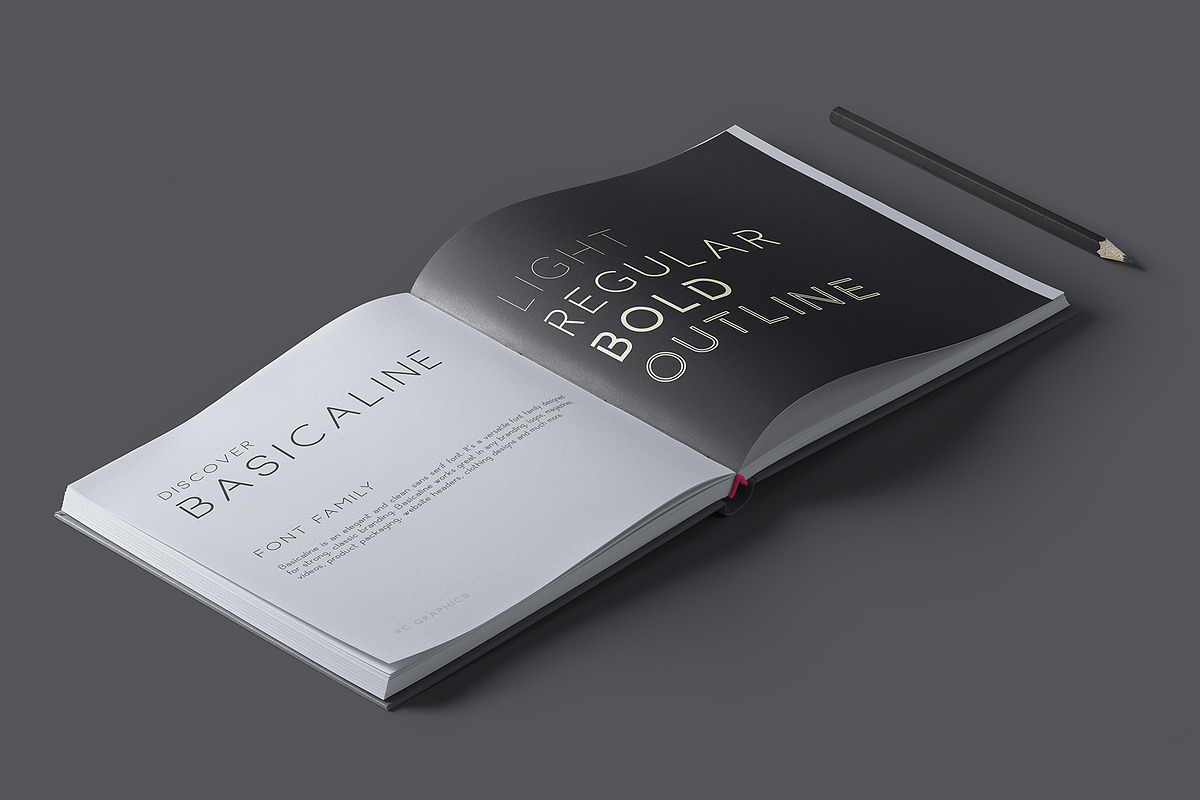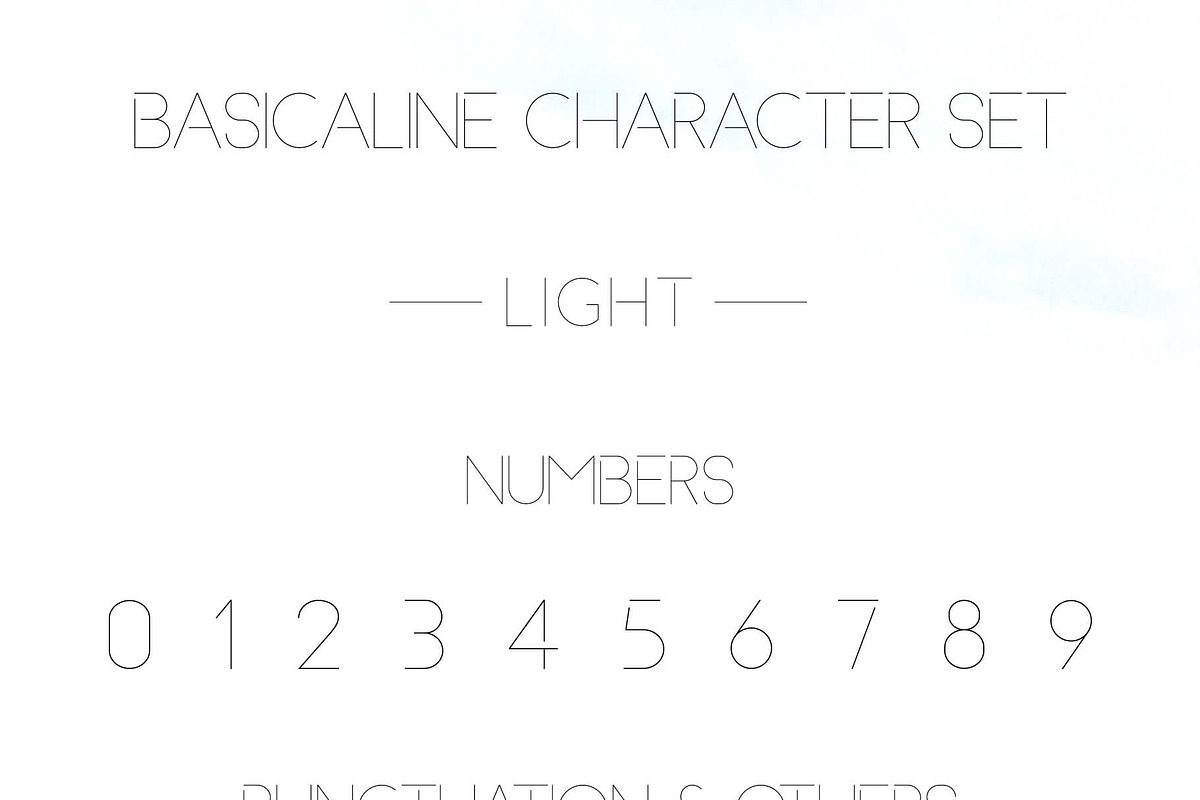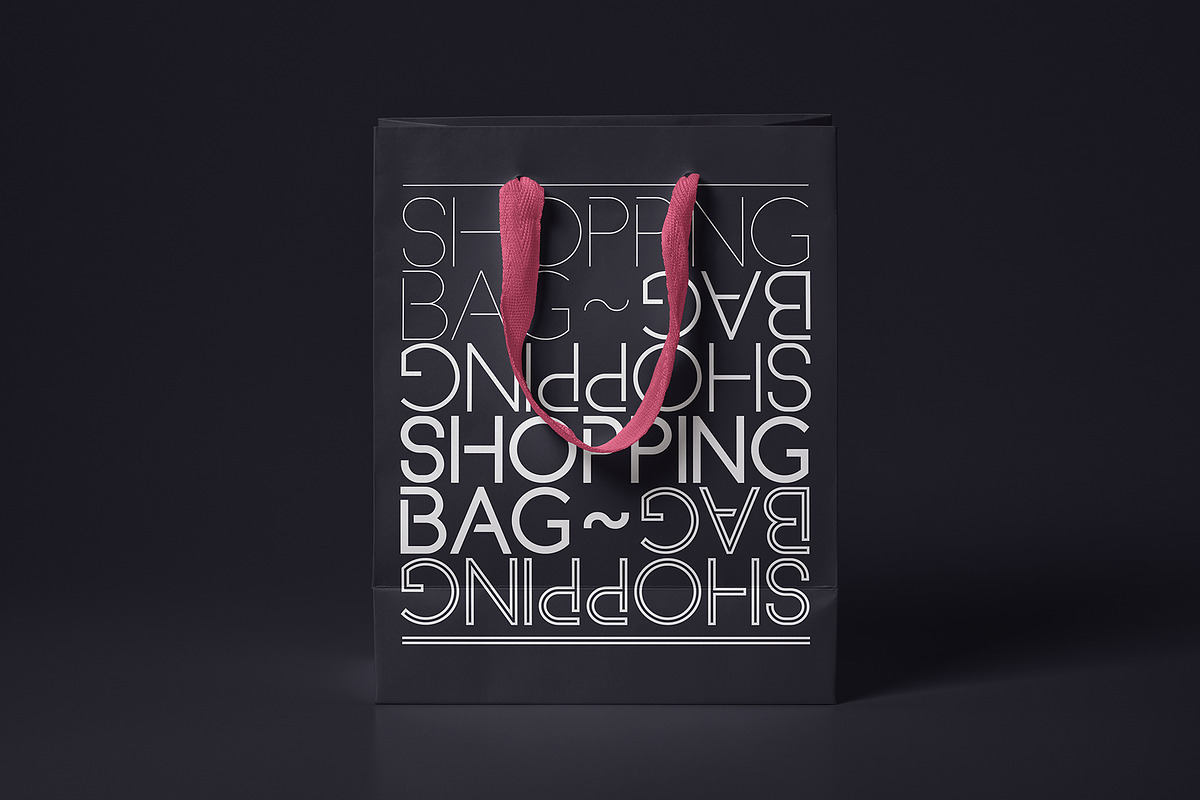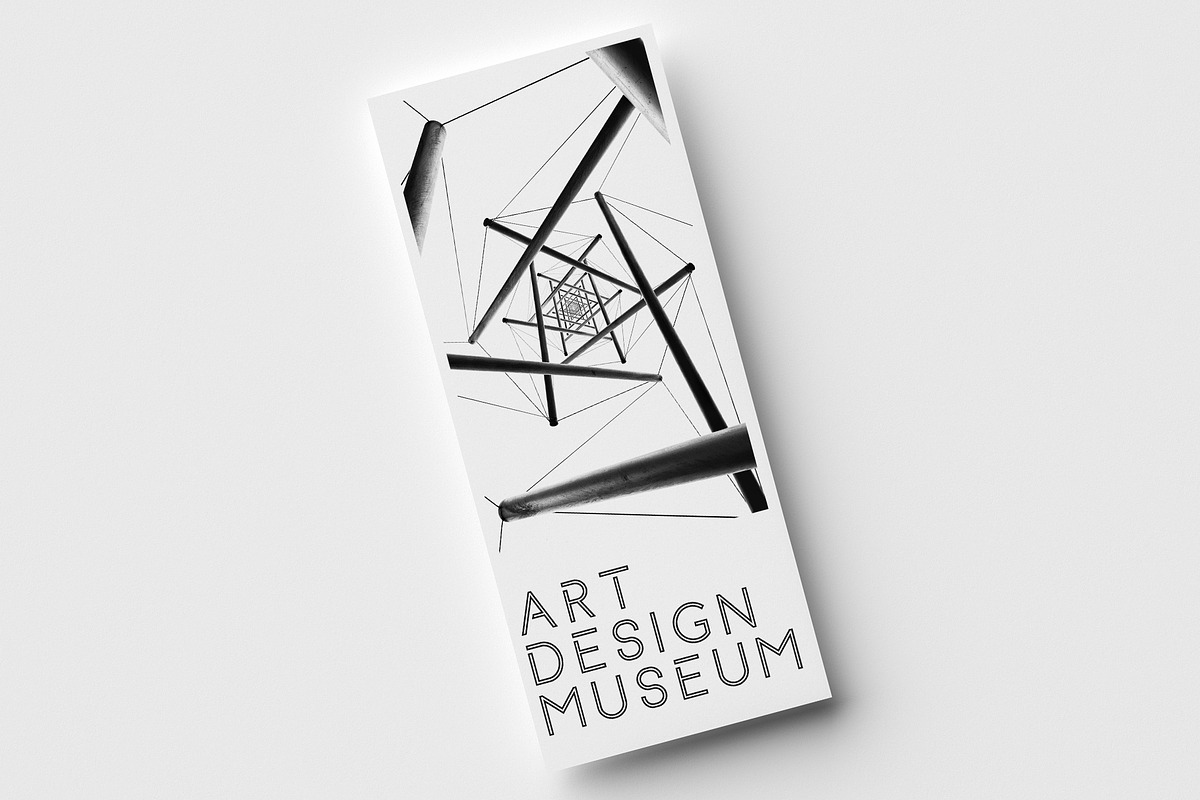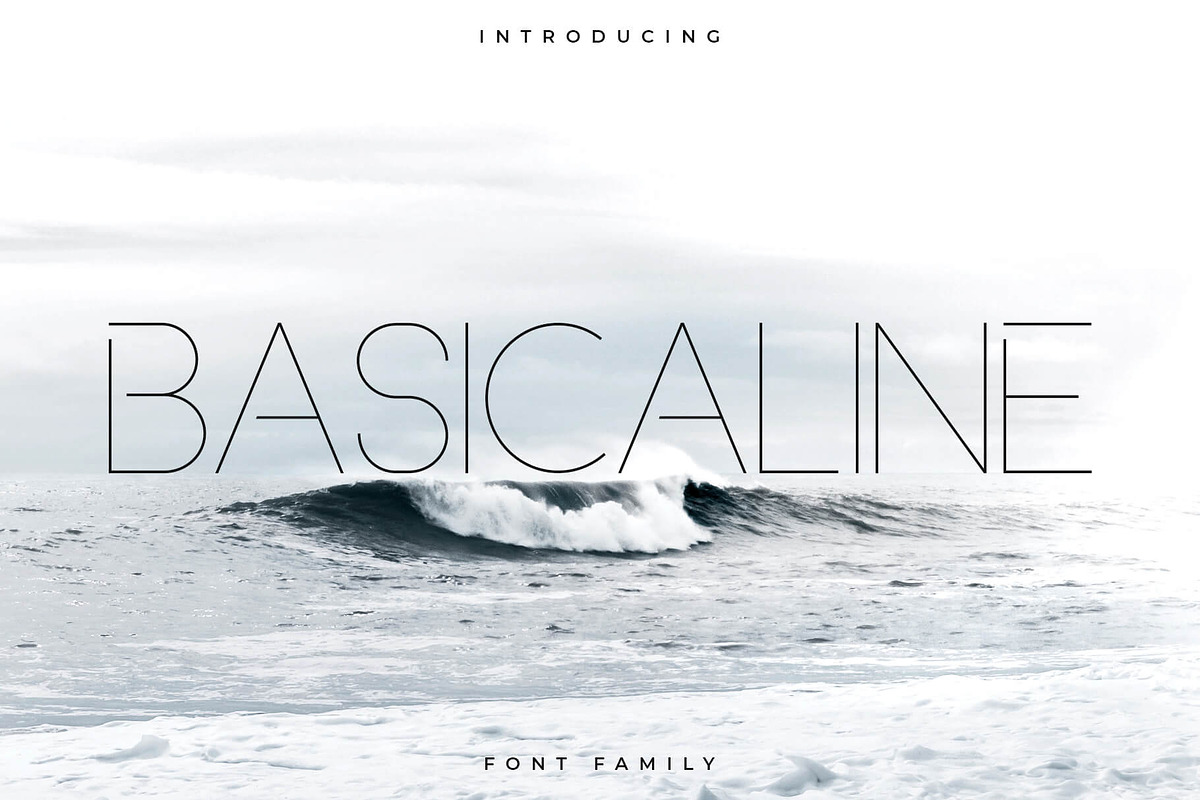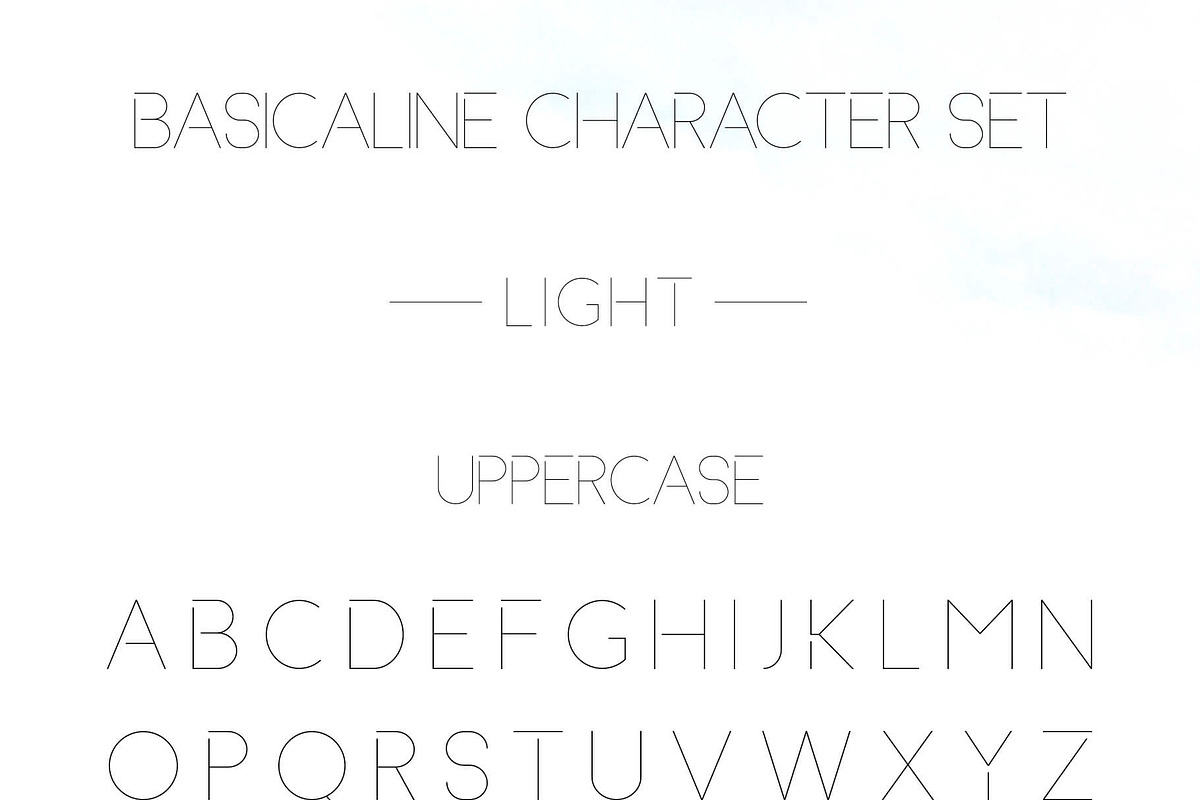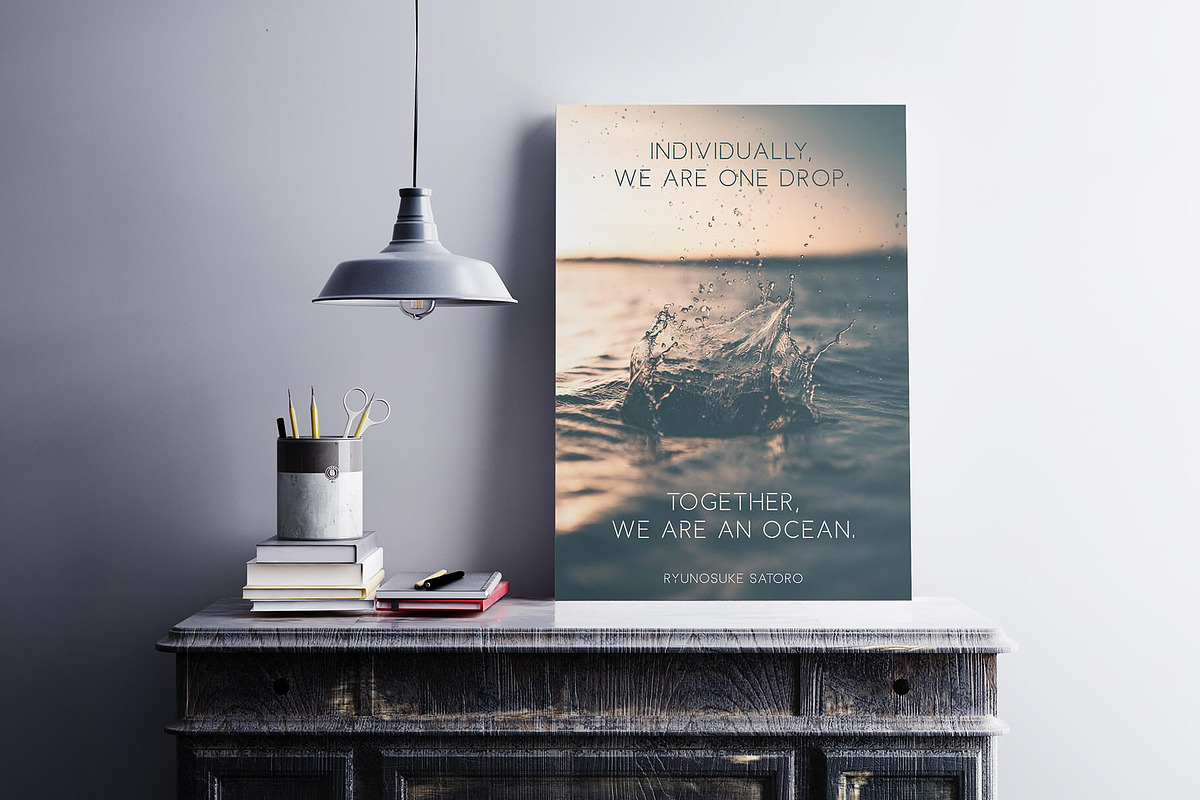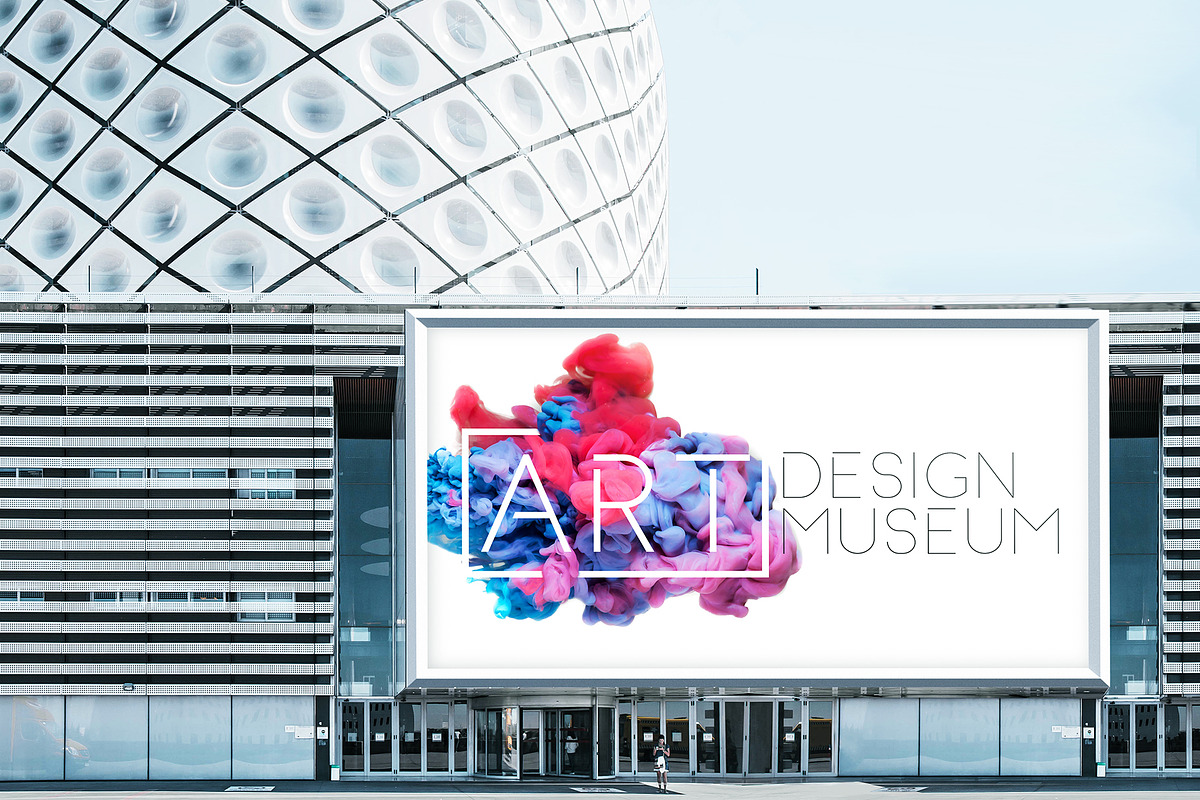
Basicaline Font Family - Sans Serif
Basicaline is an elegant and clean sans serif font. It's a versatile font family designed for strong, classic branding. Basicaline works great in any branding, logos, magazines, videos, product packaging, website headers, clothing designs and much more.
- FEATURES Uppercase Lowercase Numbers Punctuation Symbols Accented characters Light Regular Bold Outline Multilingual The preview mockups and
- Basicaline Light
- Basicaline Regular
- Basicaline Bold
- Basicaline Outline